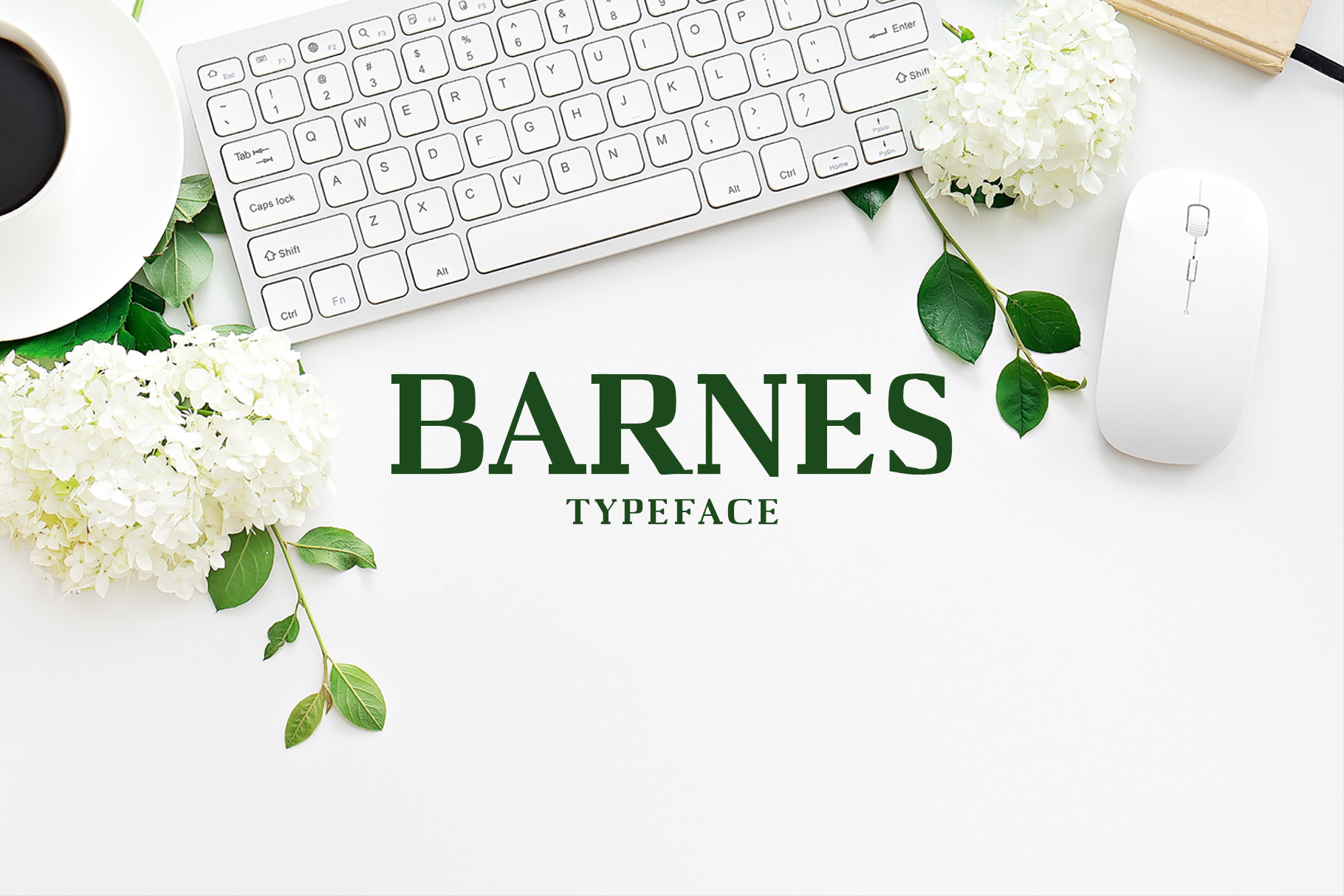
Barnes Serif 7 Font Family Pack
Barnes is a set of 7 weights font family and it is good for making creative displays and it has unique and modern serif layout.
Barnes will pair beautifully with many fonts and fit perfectly in your boldest design ideas. It looks gorgeous in all caps with a wide-set spacing if you want to try a classy look, or beautiful on its own in capital and lowercase letters for something completely timeless.
- Regular, Light, Thin, Black, Italics
Barnes Font Features:
- Uppercase Multilingual Letters
- Lowercase Multilingual Letters
- Non English Characters ( Latin Supplement + Latin Extended A)